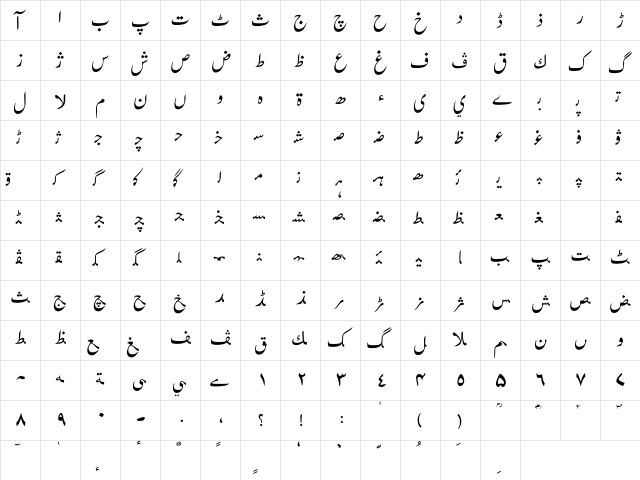
Urdu Naqsh (Nastalique) Naqsh
| Designer | Shehzad Ashiq Ali |
Design Context for Urdu Naqsh (Nastalique) Typeface
Urdu Naqsh (Nastalique) takes a measured approach to typography — its balanced proportions and neutral character make it a reliable workhorse for both digital and print work.